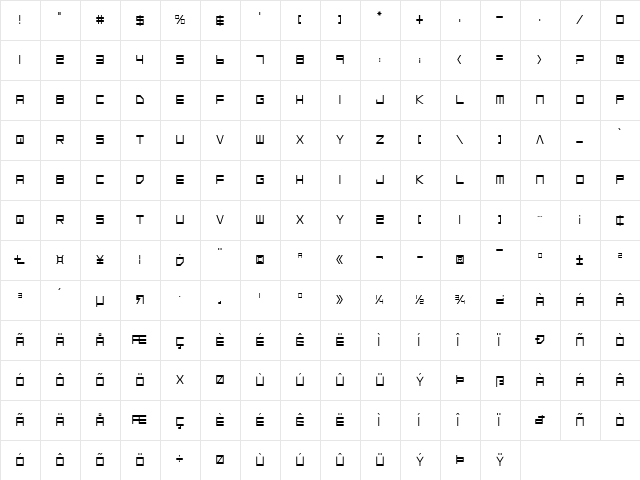
Low Gun Screen Condensed Condensed
Design Context for Low Gun Screen Condensed Typeface
Low Gun Screen Condensed is a composed and adaptable typeface that performs quietly and consistently across a wide range of design contexts. Its narrow stance lets it pack a punch even in space-constrained designs.